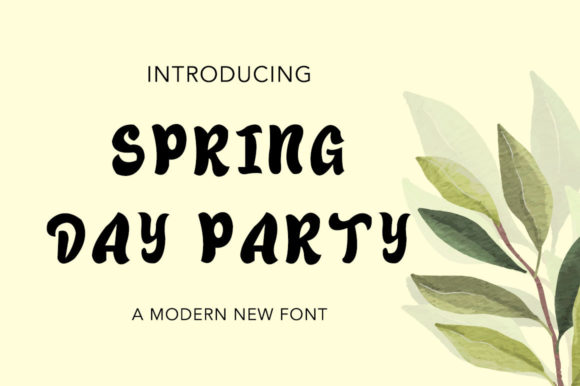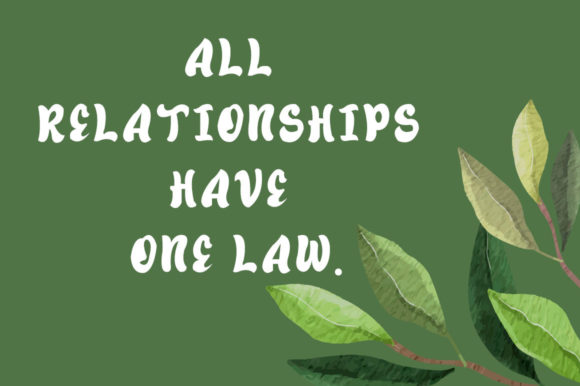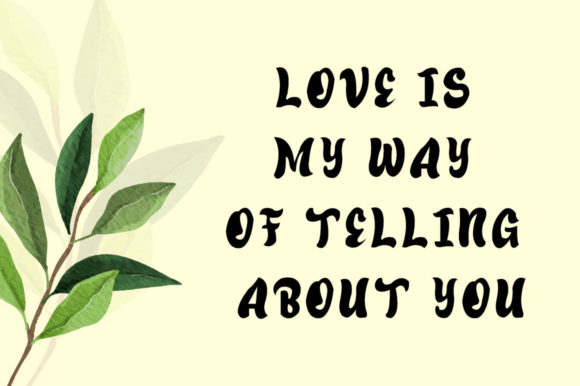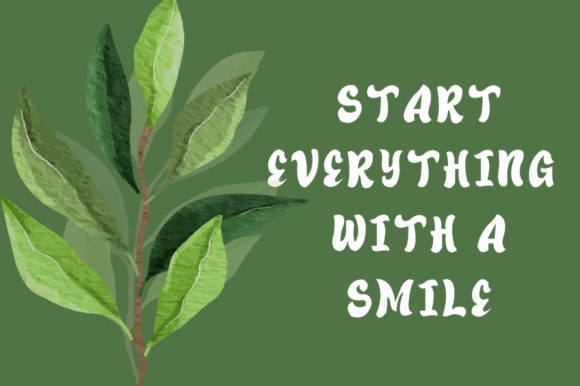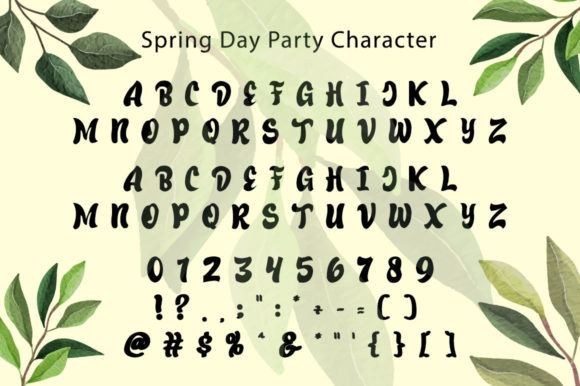
Spring Day Party Font
About Spring Day Party Font
“Spring Day Party”: Infuse Cuteness and Casual Elegance with this Serif Font
Introducing “Spring Day Party,” a cute and casual serif font designed to look outstanding in any context. Whether you’re searching for fonts for Instagram, calligraphy scripts for DIY projects, or a typeface that can turn any creative idea into a true piece of art, “Spring Day Party” is the perfect choice. With its charming and casual elegance, this font is particularly well-suited for logos, headings, t-shirts, letterhead, signage, labels, news, posters, badges, and more.
The standout feature of “Spring Day Party” is its cute and casual serif design. The font brings a touch of playfulness and elegance, making it a versatile choice for a wide range of creative applications. The casual elegance ensures that your designs maintain a stylish and approachable vibe, creating a visual experience that resonates with charm.
Imagine using “Spring Day Party” for logo designs where the font’s unique charm becomes a defining element of your brand identity. In headings and signage, the font adds a delightful touch, creating visual interest and guiding the viewer’s attention. For t-shirts and letterheads, “Spring Day Party” becomes a stylish choice that complements various design styles.
The versatility of “Spring Day Party” extends to different media, including news, posters, labels, and badges. Its readability and cute design make it suitable for conveying information effectively while maintaining a visual appeal. Whether you’re working on digital or print materials, this font ensures that your content stands out with a touch of creativity.
In conclusion, “Spring Day Party” is more than just a font; it’s a design asset that infuses cuteness and casual elegance into your creative projects. Whether you’re designing logos, headings, t-shirts, letterhead, signage, labels, news, posters, badges, or any other context, let “Spring Day Party” be the font that turns your creative ideas into true pieces of art. Explore its versatility, embrace its charm, and watch as it elevates your designs with a delightful and stylish touch.